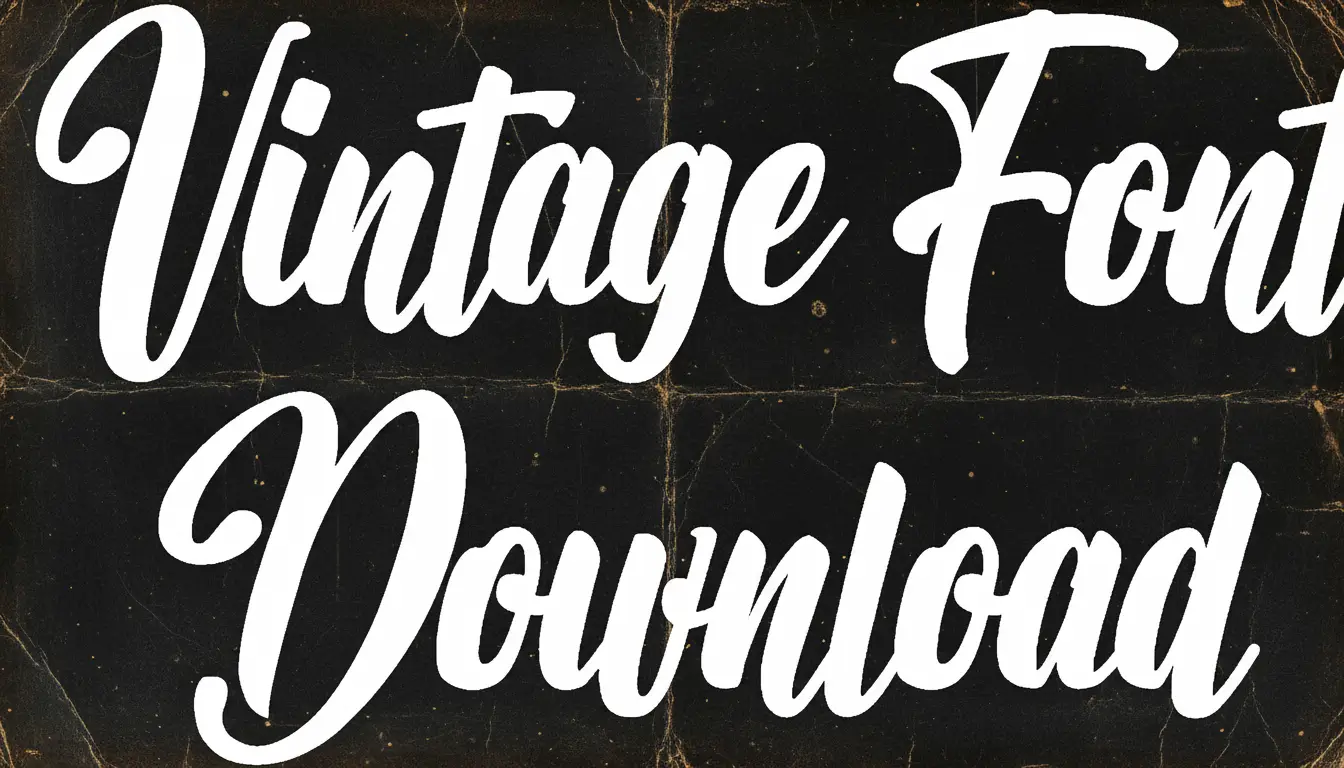
Vintage Font
Vintage is a script font designed by Rezha P. Dewanto and published by Sugartype. Its flowing, pen-made letters give names and short phrases a personal, polished look. You can download it for free and test it with your own words in the preview above.
What You Can Type With Vintage
Vintage covers the full alphabet in upper and lowercase, plus all ten numbers, so you can set names, dates and prices without switching fonts. Common punctuation such as &, !, ? and @ is included as well. It also has the accented letters you need for Spanish, French, Portuguese and Italian.
Where Vintage Works Best
Vintage is a natural fit for wedding invitations, logos and signature-style headings. Script fonts read best in short bursts, so keep it to names, titles and one-line quotes. Skip all caps: script capitals are drawn to start a word, not to fill one.
Does Vintage support accented letters?
Yes. Vintage includes the accented letters needed for Spanish, French, Portuguese and Italian, so it works for more than just English.